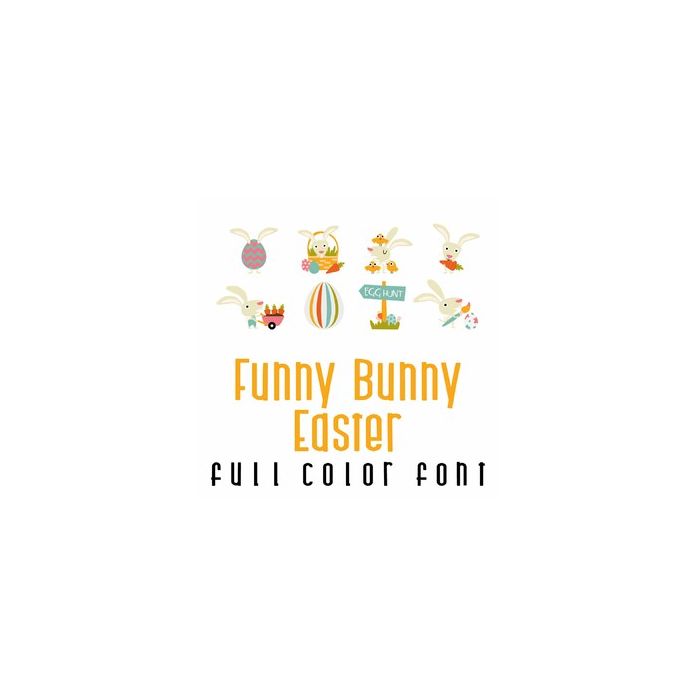
This adorable full-color doodlebat font features 26 funny bunnies ready for Easter! Perfect for Spring, Easter, gifts, cards, crafts, decor, scrapbook pages, planner stickers, classrooms and more!